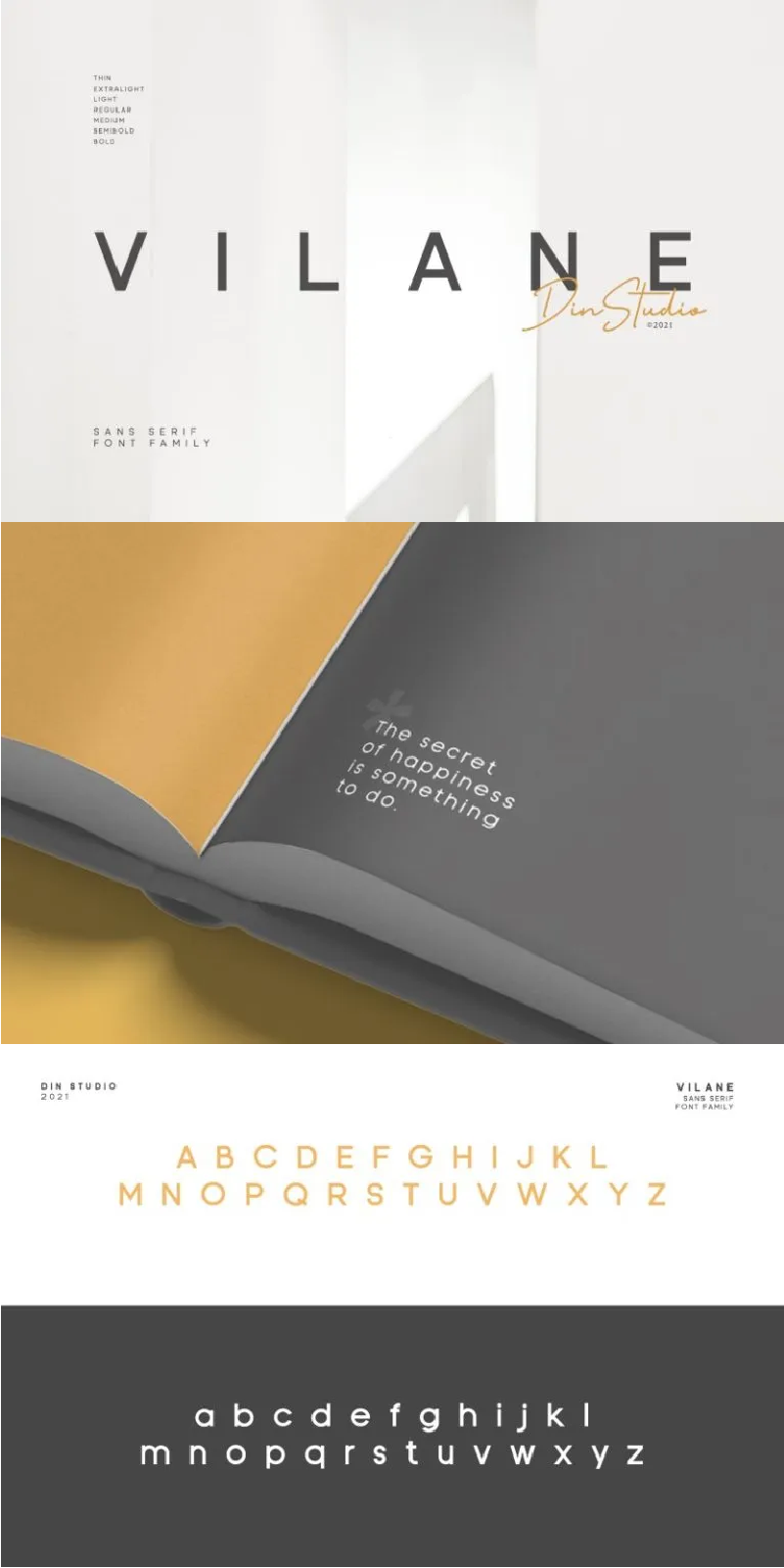
Vilane Font
About Vilane
Introducing Vilane – A Sans Serif Font Family.
It is a delightful package for you. With this family, you will get many options to captivate, engage, and inspire your audience and clients. This font can be used for a host of different content needs and projects and is perfect for social media branding projects, fashion designs, printed quotes, packaging, or even stylish texts overlaying any background images.